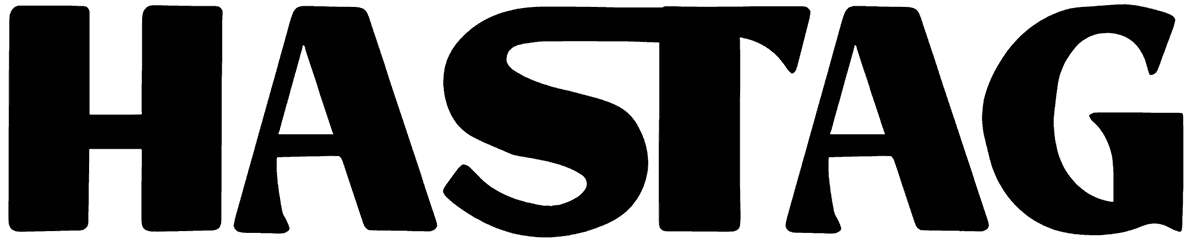
Hastag Font
To give a vintage image in your typography, tend for this retro font to be more memorable than before. Its chunky letters with an edgy end design that is inspired by serif font can continuously attract regular attention.…
To give a vintage image in your typography, tend for this retro font to be more memorable than before. Its chunky letters with an edgy end design that is inspired by serif font can continuously attract regular attention. Since just uppercase is handy, Hastag would be thriving in designing traditional headlines, movie titles, book covers, and flyers through its ancient reflection.
Hastag is a vintage display font that was made by hand and inspired by classic posters. Hastag comes with uppercase, small caps, numerals, symbols & punctuations, alternate, ligature and multilingual support.